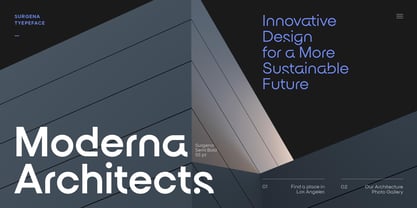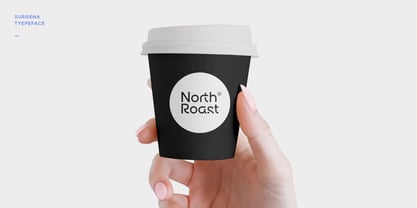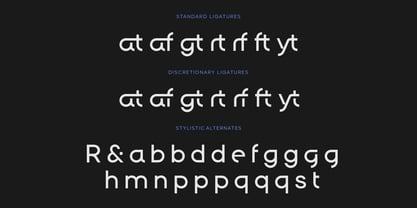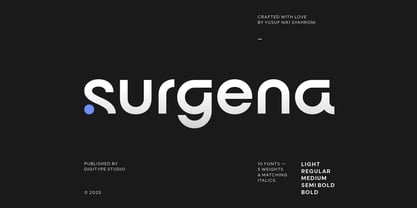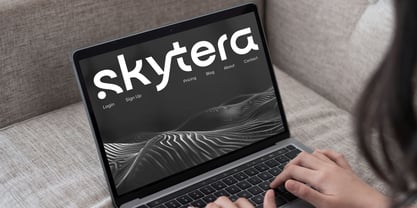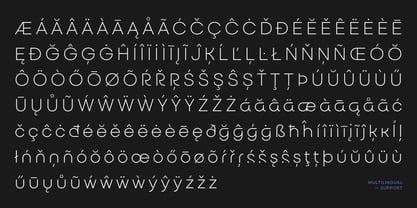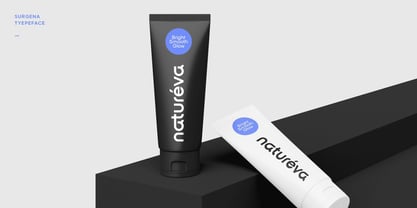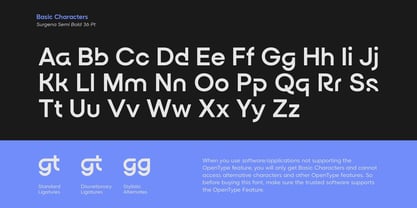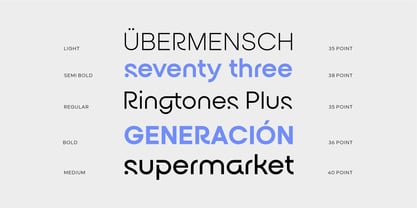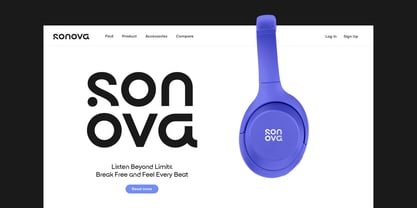
Surgena
by Digitype Studio
The Surgena Font Family was designed by Yusuf Niky Syahroni and published by Digitype Studio. Surgena contains 10 styles and family package options.
Surgena is a modern sans-serif font combining minimalist elegance and clean, precise geometric shapes. With balanced proportions and refined details, it conveys a professional, innovative, and dynamic feel, making it perfect for branding, editorial, and digital design. Featuring multiple weights, OpenType features, and stylistic alternates, Surgena offers high versatility without compromising readability, making it an ideal choice for projects that require a modern, bold, and sophisticated look.
Designers: Yusuf Niky Syahroni
Publisher: Digitype Studio
Foundry: Digitype Studio
Design Owner: Digitype Studio